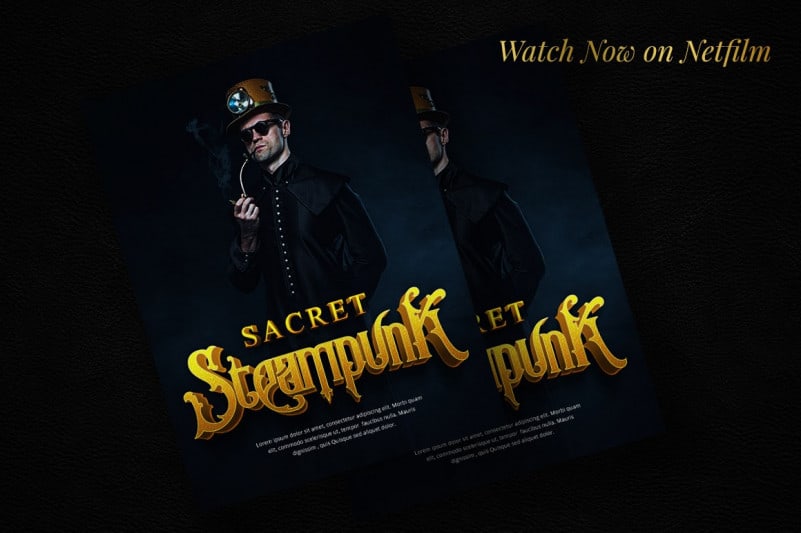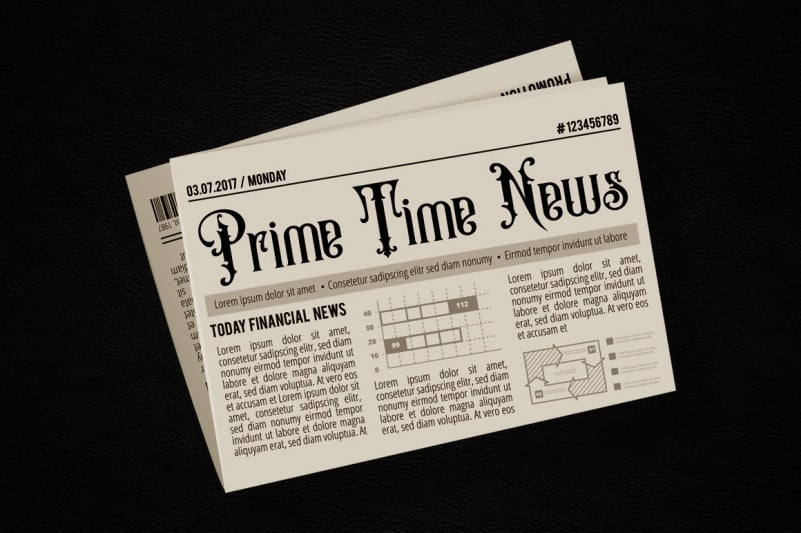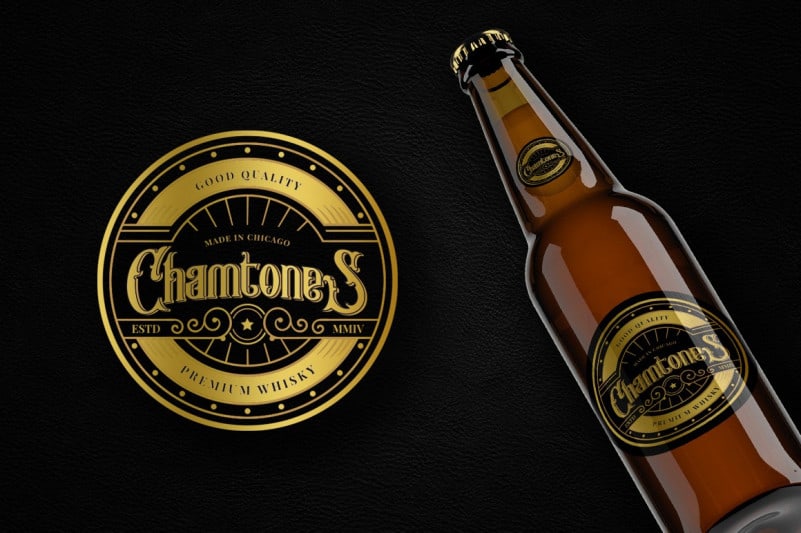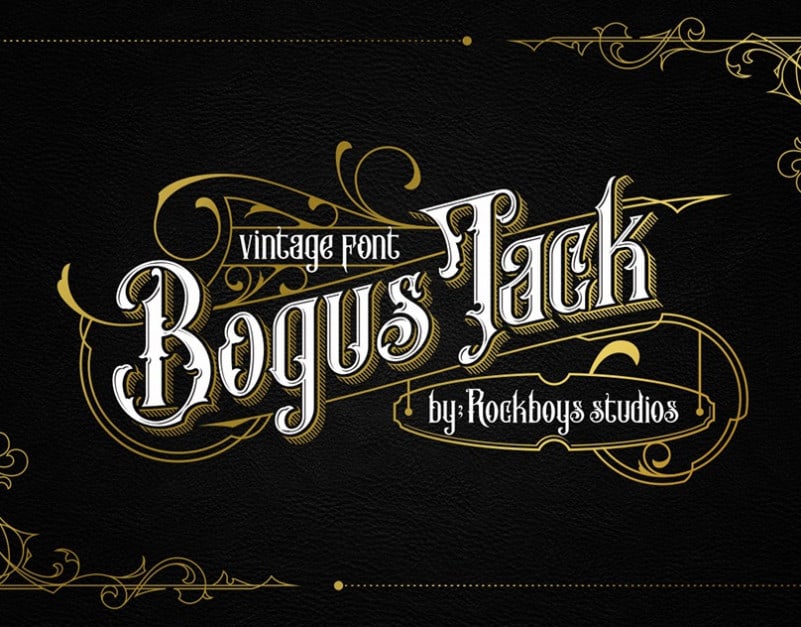
Bogus Jack Blackletter Font
Bogus Jack Blackletter Font is inspired by ornament Riau Malay. The product also includes a set of decorative ornaments. This combination allows you to easily build beautiful vintage designs in a short time. It’s designed and shared by Rockboys Studio. This typeface is an amazing blackletter font. It has a unique style and it will look great on logos, posters, headlines, packaging, tattoos, clothing, and much more!